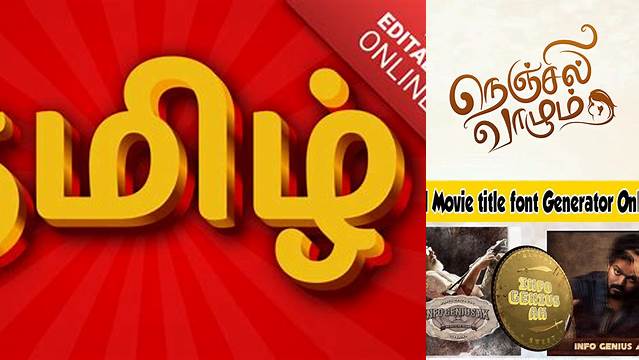
Tamil Movie Title Font: Free Downloads & Generators
Are you looking to create a captivating and authentic Tamil movie title? The right font can make all the difference, setting the tone and drawing audiences in. In this article, we'll explore the world of Tamil movie title fonts, guiding you through how to find, download, and use them for free. Let's dive into the details of Tamil movie title font generator free download and how you can achieve stunning designs without spending a dime.
Understanding the Importance of Font Choice in Movie Titles
Choosing the right font for a movie title is more than just picking something that looks nice; it's about conveying the essence of the film. The font sets the stage, hinting at the genre, mood, and overall theme. For Tamil movies, this is especially crucial because the script itself carries a rich cultural heritage.
When selecting a font, consider the following:
- Genre: Is it an action-packed thriller, a romantic comedy, or a historical drama? Each genre calls for a different style of font. For example, a thriller might benefit from a bold, sharp font, while a romance could use something softer and more elegant.
- Readability: The font should be easily readable, even at a glance. Ornate or highly stylized fonts can be tempting, but if they sacrifice readability, they're not a good choice.
- Cultural Relevance: The font should respect and reflect the cultural context of the movie. Using a font that feels out of place can disconnect the audience.
- Originality: While it's good to draw inspiration from existing fonts, aim for something unique that will make your movie title stand out. A custom font can be a great way to achieve this, but there are also many free fonts that you can modify to suit your needs.
By paying attention to these factors, you can choose a font that not only looks great but also enhances the overall impact of your movie title. Remember, the title is often the first thing people see, so make it count!
Where to Find Free Tamil Movie Title Fonts
When downloading fonts, always make sure to download them from reputable sources to avoid malware or copyright issues. Check the license agreement to ensure that the font is free for commercial use, especially if you plan to use it for a movie title.
Using a Tamil Movie Title Font Generator
For those who want a quick and easy way to create Tamil movie title designs, a font generator can be a useful tool. While these generators may not offer the same level of customization as professional design software, they can be a great starting point for brainstorming ideas.
Here’s how to use a Tamil movie title font generator:
- Find a Generator: Search online for "Tamil movie title font generator." Several websites offer this type of tool. Look for one that has a good selection of Tamil fonts and customization options.
- Enter Your Title: Type your movie title into the generator. Make sure the generator supports Tamil script.
- Choose a Font: Browse through the available fonts and select one that you like. Many generators allow you to preview the title in different fonts.
- Customize the Design: Some generators offer options to customize the design, such as changing the color, size, and adding effects like shadows or outlines.
- Download the Image: Once you're happy with the design, download the image. Most generators will allow you to download the title as a PNG or JPG file.
Creating an impactful Tamil movie title is an art that combines creativity, cultural understanding, and technical skill. By leveraging free Tamil movie title fonts and utilizing font generators, you can craft titles that resonate with your audience and enhance the visual appeal of your movie. Remember to consider the genre, readability, and cultural relevance when choosing a font. With the resources and tips provided in this guide, you're well-equipped to create stunning Tamil movie titles that leave a lasting impression. So go ahead, explore the world of Tamil fonts, and bring your movie titles to life! And always ensure to have a proper tamil movie title font generator free download.